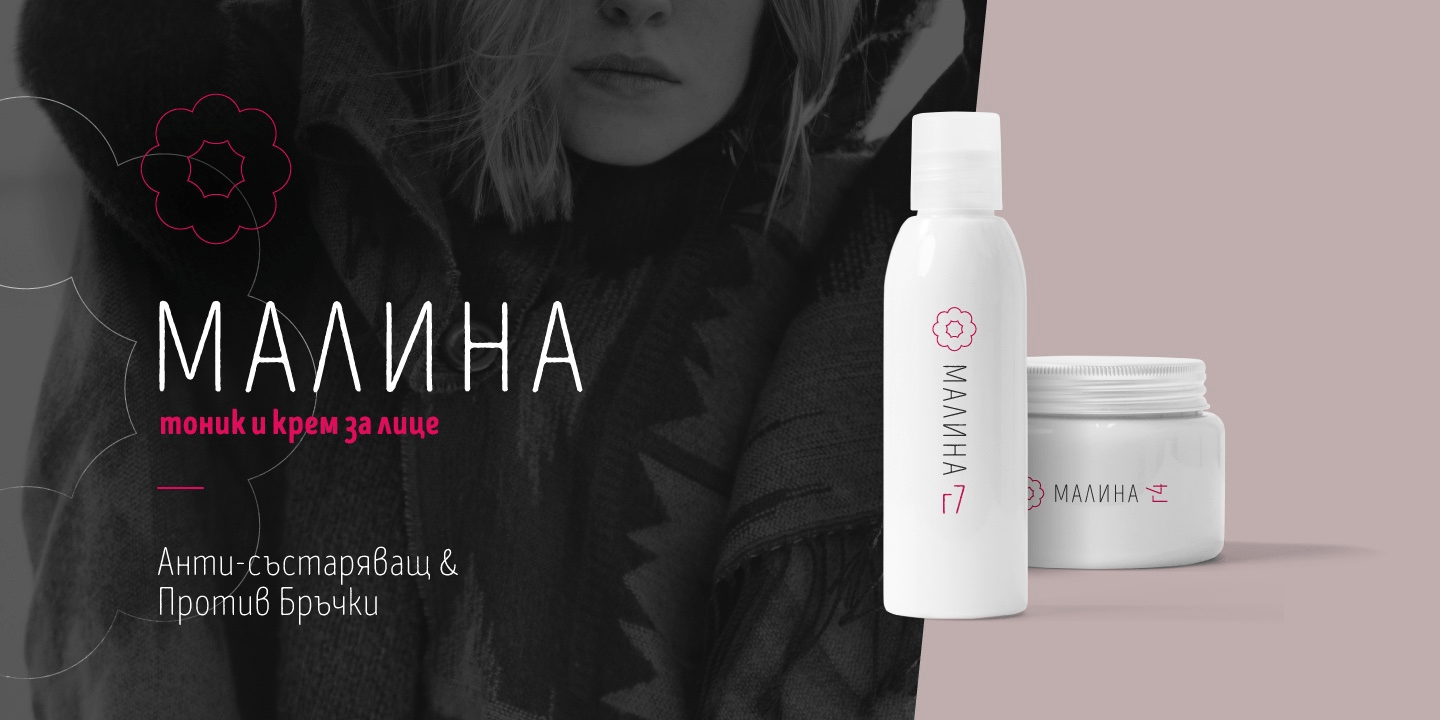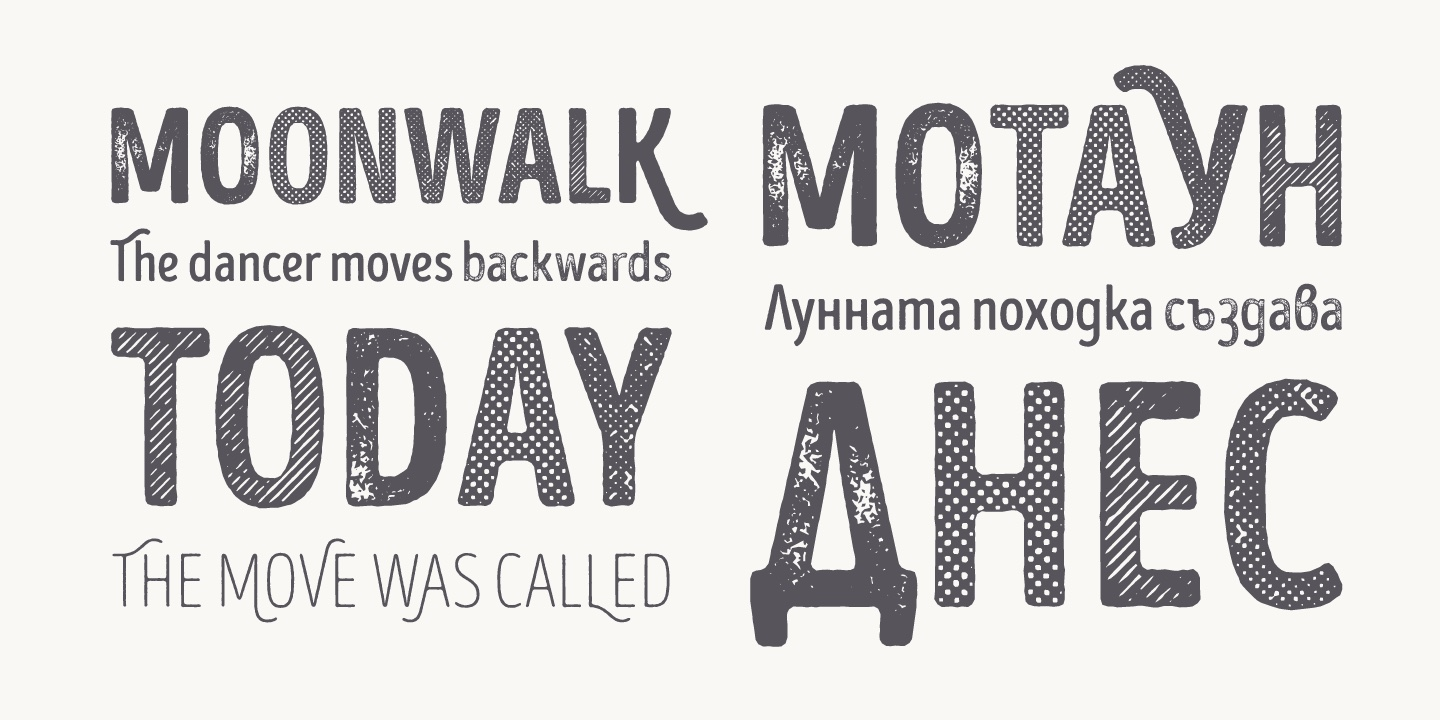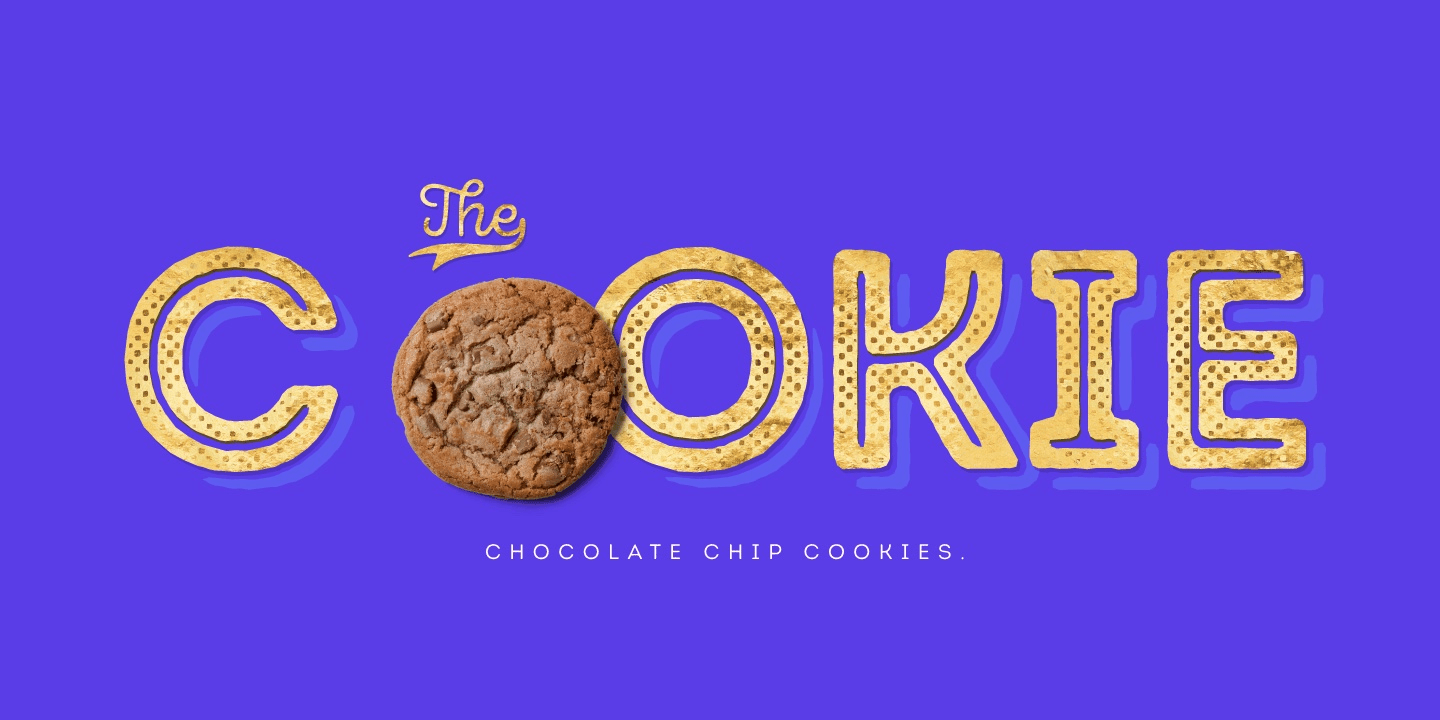
About Intro Rust
Intro Rust is one of the biggest packages on the market, including 214 fonts. The font family is a rough version of the famous Intro font family. The Intro Rust typeface bundle includes four sub-families – Intro Rust, Intro Script, Intro Head, and…